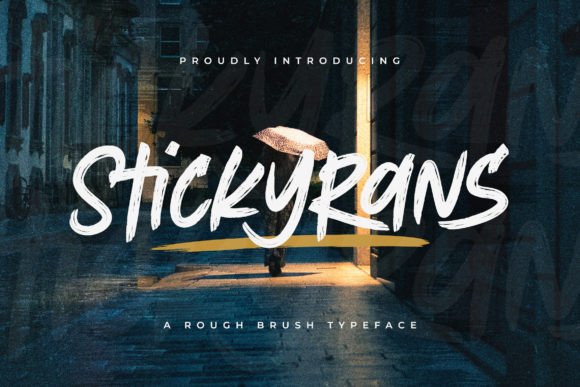
Journey into the realm of creative expression with "Stickyrans" - a script font family that embodies the essence of artistic ruggedness. Crafted with meticulous care by TypeFactory, "Stickyrans" is a font that captures the raw essence of human creativity, leaving an indelible mark on your designs.
Let your imagination run wild as you explore the possibilities of "Stickyrans," a font designed to add an authentic edge to your work. With its textured and expressive letterforms, "Stickyrans" is the perfect choice for handcrafted logos that demand attention, gritty posters that convey a powerful message, and urban branding that reflects the vibrant energy of city streets.
Step into a world where creativity thrives, where the boundaries of expression are limitless. "Stickyrans" is your canvas, inviting you to paint your artistic vision with boldness and flair. Its rough brush style evokes a sense of authenticity, adding depth and character to every project. Whether you're a graphic designer seeking to make a statement or an artist exploring new avenues of expression, "Stickyrans" is your trusted companion, guiding you towards greatness.
Embrace the raw, untamed spirit of "Stickyrans," and let your designs speak volumes. This font family is a testament to the transformative power of creativity, an ode to the beauty of imperfection. With "Stickyrans," you're not just downloading a font; you're unlocking a gateway to a world where artistic possibilities are endless.